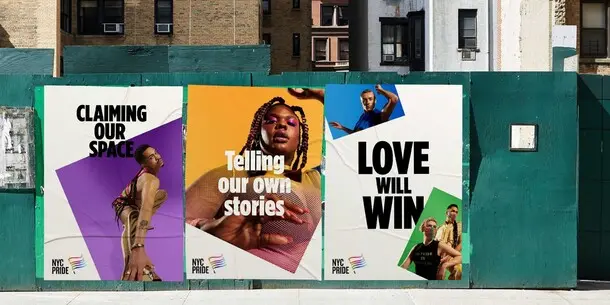
Monotype Font Families, Knockout and Gotham, Express New Brand Identity for NYC Pride
WOBURN, Mass.,—Feb. 16, 2022—Monotype has announced its collaboration with Lippincott on a comprehensive branding project for NYC Pride, unveiled today. This new visual identity uses the Knockout and Gotham typefaces, both designed by NYC-based Hoefler&Co. and now part of the Monotype library, paying homage to the city in which NYC Pride was born.
NYC Pride is the trademark event of Heritage of Pride, with a recognized legacy of unity, protest, advocacy and fun. Its new brand purpose, to “inspire and empower every LGBTQIA person to proudly love and live their truth,” is fueled by the new visual identity features, where Knockout and Gotham lend a bold and direct, yet warm, appearance to the brand across platforms, including website and social media channels.
Underpinning this visual identity are the two standout typefaces from Hoefler&Co., which joined the Monotype portfolio in September 2021. The enduring fighting spirit of Knockout, with its roots in the eclectic typography of 19th century broadsides, perfectly counterbalances the friendly openness of Gotham, a contemporary take on a style of sign lettering that is quintessentially New York and whose elemental forms were made to express as broad and inclusive a range of voices as possible. In leveraging the Gotham family, NYC Pride joins a roster of other notable uses, including Barack Obama’s 2008 presidential campaign.
“Working on this major revitalization of NYC Pride with Lippincott is a true ‘passion project’ for Monotype, deploying type across elements of design, place, and identity,” said Sara Soskolne, Creative Type Director at Monotype. “We’re delighted that Knockout and Gotham will help to tell the story of NYC Pride’s heritage and inclusivity through typography, while conveying that it’s more than just an annual celebration—it’s an enduring legacy.”
Jenifer Lehker, Partner, Design at Lippincott, added, “NYC Pride is recognized globally as a beacon of safety, community and allyship, but also as a symbol of protest and activism. Monotype understood this and beautifully contributed to our cause with the Gotham and Knockout font families, both which truly convey the brand’s spirit and legacy.”
“Pride began as a protest, and we wanted to capture a typographic voice reminiscent of bold, eye-catching posters used by protestors. Designed in NYC, Knockout and Gotham pay homage to the brand’s roots, while providing the visual boldness necessary to amplify the community’s voices.”